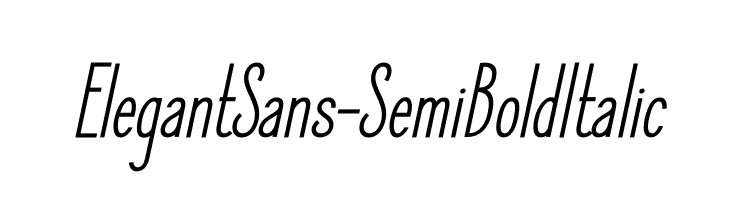
A sleek, modern sans-serif font with thin, elongated letterforms.
A sleek, semi-bold italic font with a modern and elegant design.
A thin, elegant, and modern italic font with sleek, elongated characters.
A sleek, italic sans-serif font with a modern and elegant style.
A modern, bold sans-serif font with a sleek and condensed style.
A sleek, light, and italicized font with a modern and elegant appearance.
A sleek, modern sans-serif font with a light weight and narrow characters.
A modern, semi-bold sans-serif font with a sleek and sophisticated design.